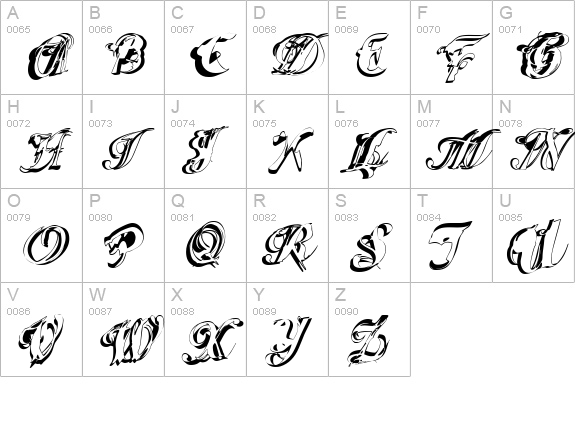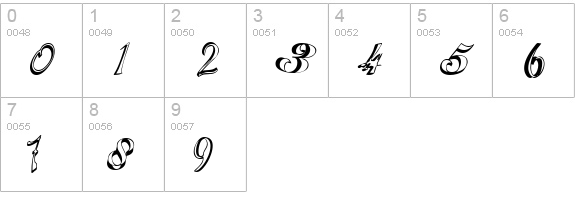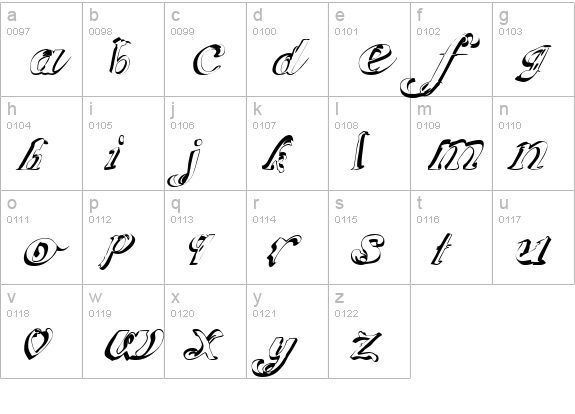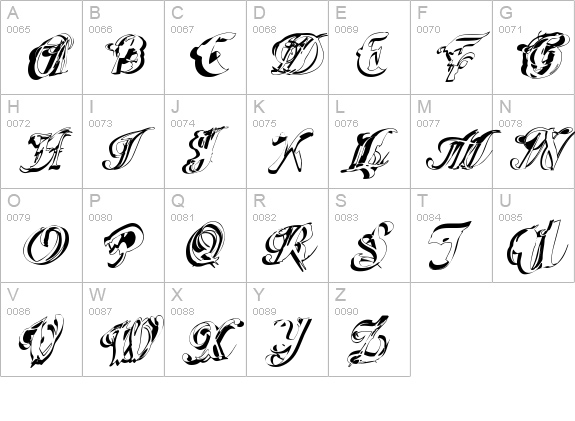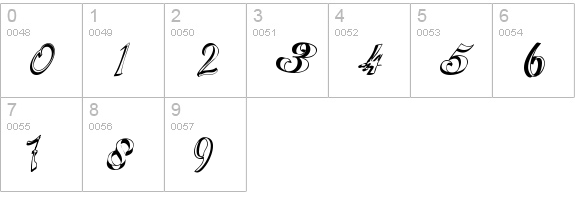
ScripteriaCola Font Details
ScripteriaCola is a stunning and versatile font that will add a touch of elegance and sophistication to any design project. Whether you're creating invitations, logos, branding materials, or simply looking to elevate your typography game, this font has got you covered. With its beautifully crafted cursive script, ScripteriaCola exudes a sense of charm and grace. Each letter is meticulously designed to flow seamlessly, creating a smooth and harmonious aesthetic. The elegant curves and stylish flourishes of this font make it perfect for adding a touch of femininity and refinement to your designs. But what makes ScripteriaCola even more appealing is that it is absolutely free. That's right, you can download this exquisite font without spending a dime. Simply head over to FontsMarket.com and get your hands on this gem of a font. Embrace its beauty and let it elevate your designs to new heights. Not only is ScripteriaCola freely available, but it also comes with a wide range of glyphs and ligatures, allowing you to create truly unique and personalized designs. Whether you're looking for a classic and timeless look or a more contemporary and trendy feel, this font has the versatility to adapt to any style. ScripteriaCola is the epitome of elegance and sophistication, and its free availability makes it a must-have in any designer's toolkit. So why wait? Start creating stunning and captivating designs today with ScripteriaCola, available for free download at FontsMarket.com.